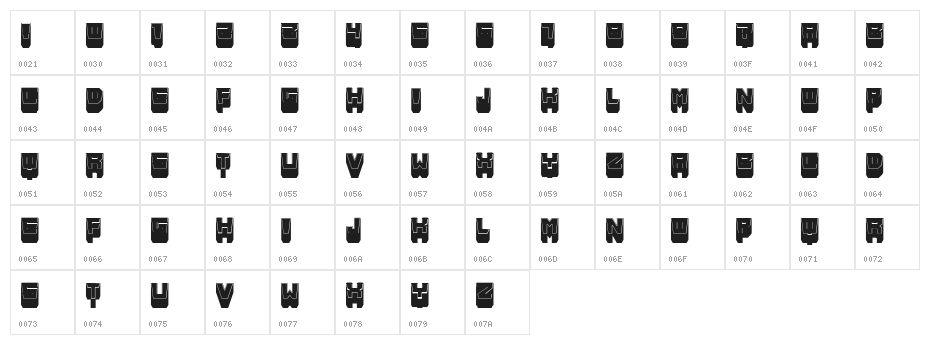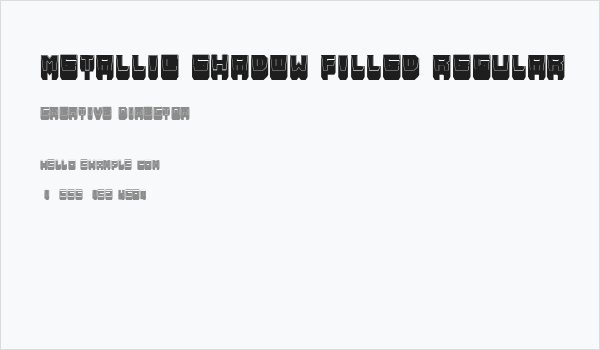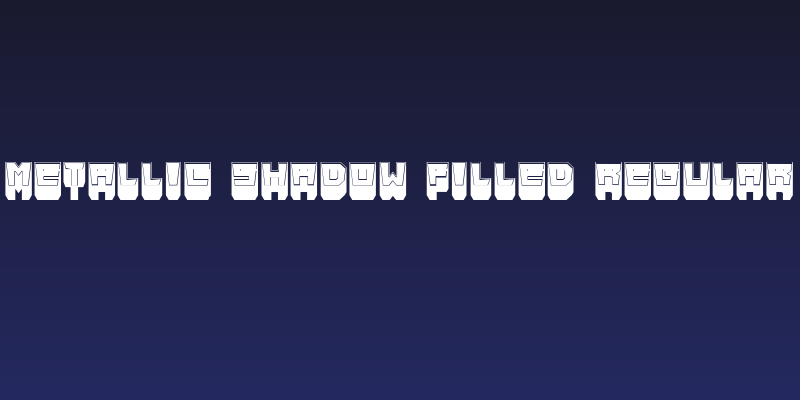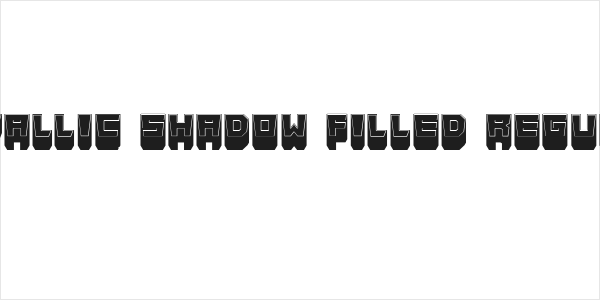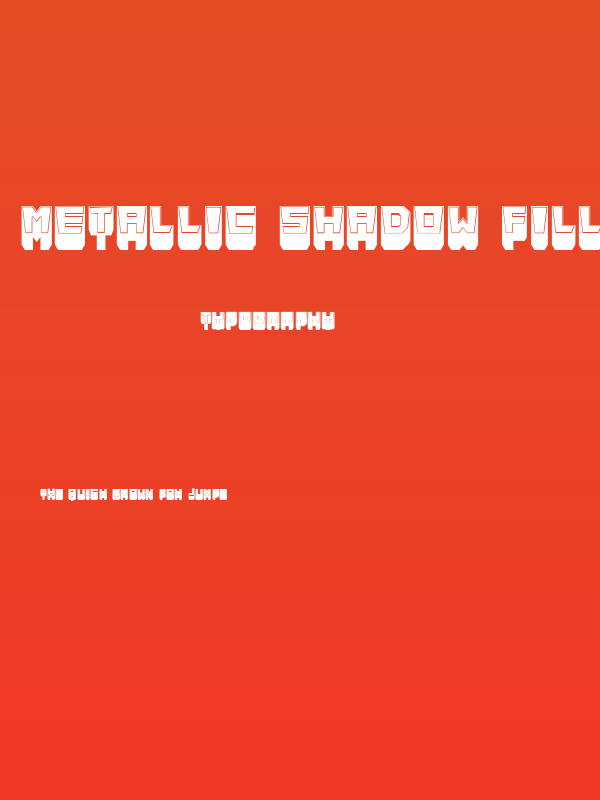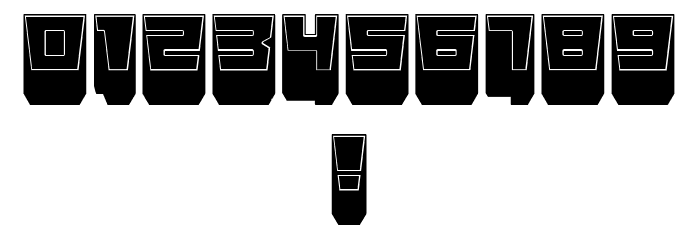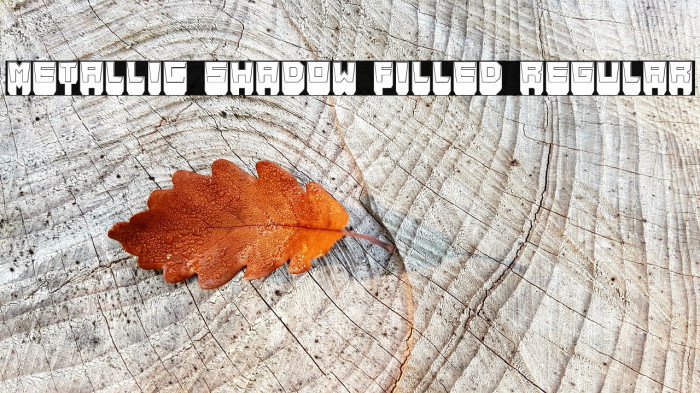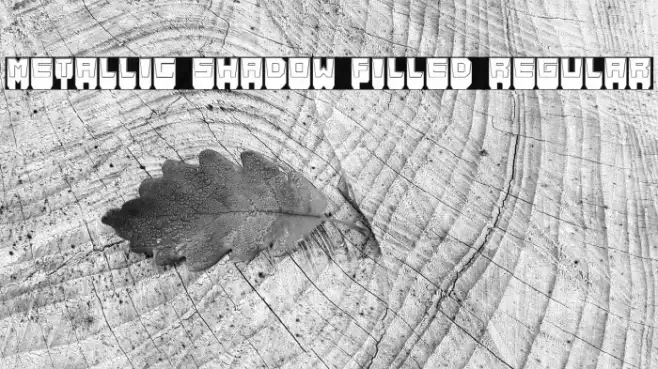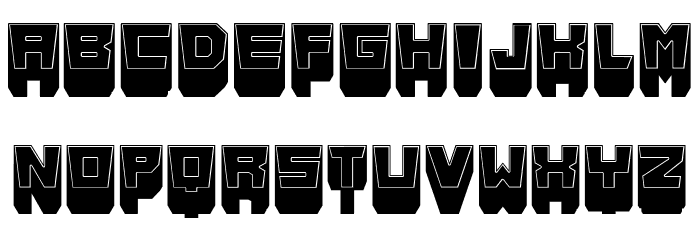
Metallic Shadow Filled Regular Font
Metallic Shadow Filled Regular Description
This font features a bold, three-dimensional design with a metallic appearance. Each character is filled with a shadow effect that gives it a distinct, futuristic look. The letters are blocky and geometric, with sharp angles and clean lines, creating a sense of depth and solidity. The uppercase and lowercase letters maintain a consistent style, while the numbers and special characters complement the overall aesthetic. This font is ideal for projects that require a strong, impactful visual presence.
| Overall Style | Futuristic, Decorative |
| Proposed Projects | Perfect for video game titles, movie posters, sci-fi themed events, and branding that requires a strong visual impact. |